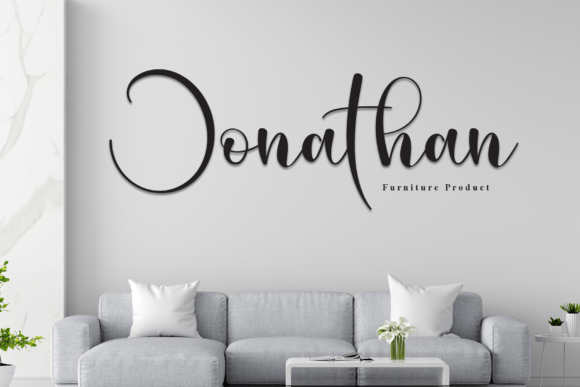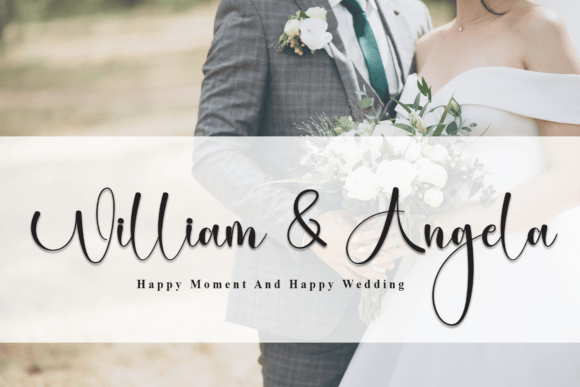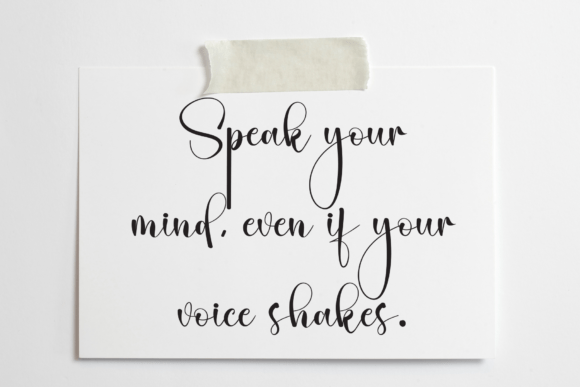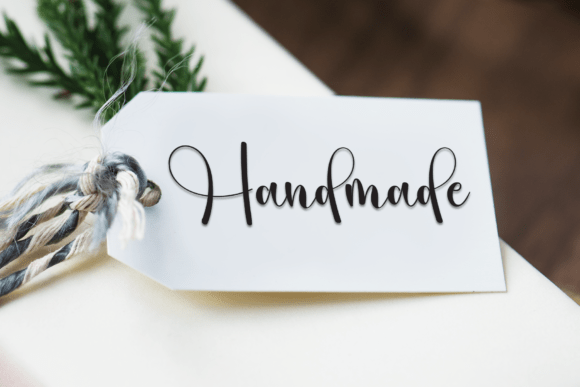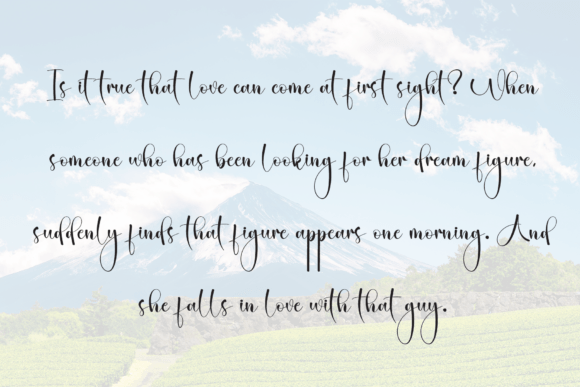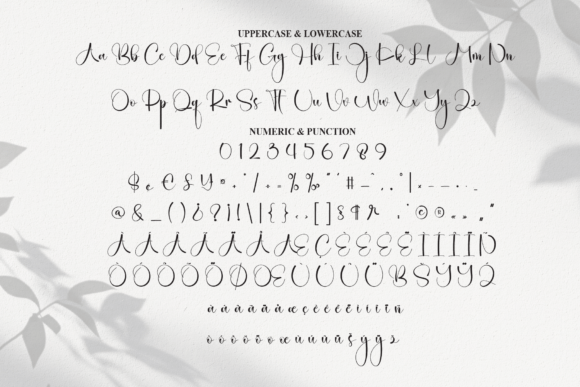
The Perfect Script: Unlocking the Magic of Catalina Font
As designers, we’ve all been there – staring at a blank page, trying to convey the perfect message, and searching for that elusive touch of personality. And then, it happens – the perfect font comes along and elevates our work from ordinary to extraordinary. For many, that magic font is Catalina Font, a stylish handwritten script that adds a dash of elegance and playfulness to any project.
Catalina Font is more than just a font – it’s a way to add warmth, sophistication, and creativity to your designs. Whether you’re crafting invitations, branding materials, or social media graphics, this font is the perfect companion. Its flowing curves and natural rhythm make it a joy to work with, and its versatility ensures it will always be in style. For designers, Catalina Font is a valuable asset, offering a unique touch that sets projects apart and leaves a lasting impression.
- Unique Characteristics: Catalina Font is known for its elegant and sophisticated design, featuring a mix of classic and modern elements. It includes a range of ligatures, swashes, and alternate characters that add to its unique charm.
Catalina Font Review
Catalina is a beautiful font that exudes elegance and sophistication. The flowing curves and refined lines ✨ make it perfect for luxury branding, high-end magazines, or even weddings. The font’s gentle irregularities add a touch of humanity, giving it a unique character that’s hard to find in other fonts.
However, there are some limitations to consider. The font’s high x-height and large capital letters can make it feel a bit too ornate ⚠️ for some applications. Additionally, the font’s subtle irregularities can sometimes make it difficult to read at very small sizes.
- Unique, flowing curves and refined lines
- Perfect for luxury branding, high-end magazines, or weddings
- High x-height and large capital letters can feel ornate
- Subtle irregularities can make it difficult to read at small sizes
- Available in various weights and styles
Overall, Catalina is a stunning font that’s sure to make a statement. While it may not be the best choice for every application, it’s perfect for those looking to add a touch of elegance and sophistication to their designs.